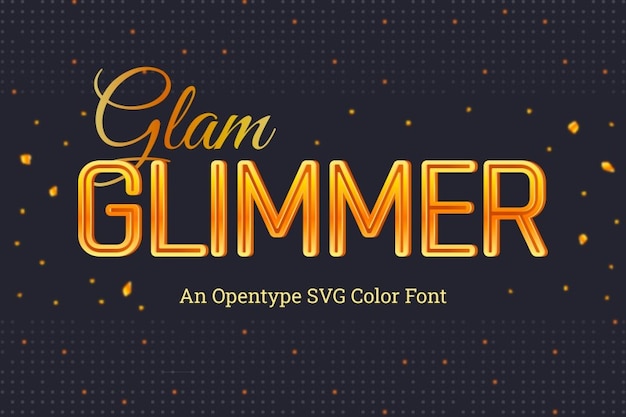
Glam Glimmer Font
The font that exudes the essence of luxury and all things glamorous. Its letters shimmer like dazzling diamonds, evoking a sense of opulent splendor. 'Glam Glimmer' adds a touch of lavish charm to your text, where every letter is a brushstroke of opulence and the radiant glimmer of high-end sophistication, crafting a typographic masterpiece that's both visually extravagant and undeniably posh.